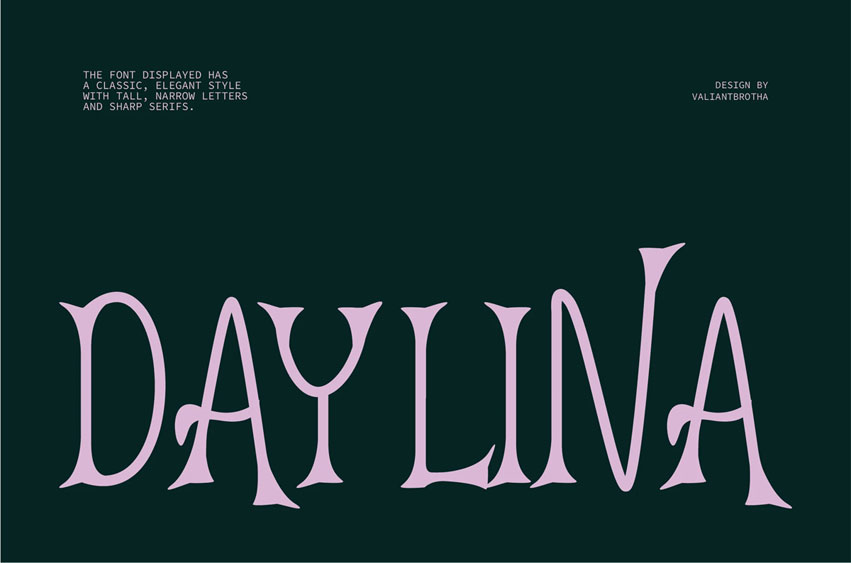
Daylina Font
Daylina Font is a sophisticated font with an elegant, classic style that features tall, narrow letters complemented by sharp serifs. — TTF, OTF, WOFF, WOFF2 Free future updates —